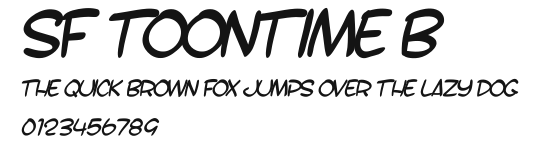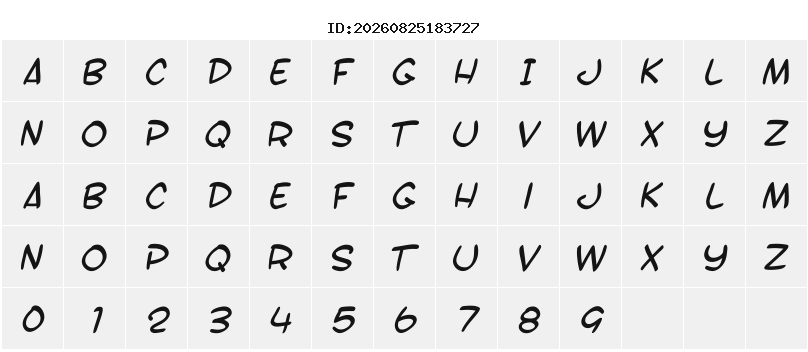
• Font Name: SF Toontime B
• Font ID: ShyFontsTypeFoundry: SF Toontime B Italic: 2000
• Full Font Name: SF Toontime B Italic
• PostScript Name: SFToontimeB-Italic
• Character Count: 204
• Designer: ShyFonts Type Foundry
• Description: SF Toontime B Italic is a trademark of the ShyFonts Type Foundry.
About SF Toontime B.ttf
SF Toontime B.ttf is a modern, elegant sans-serif font designed for ultimate readability and visual harmony. Perfect for branding, headlines, web design, and print materials.